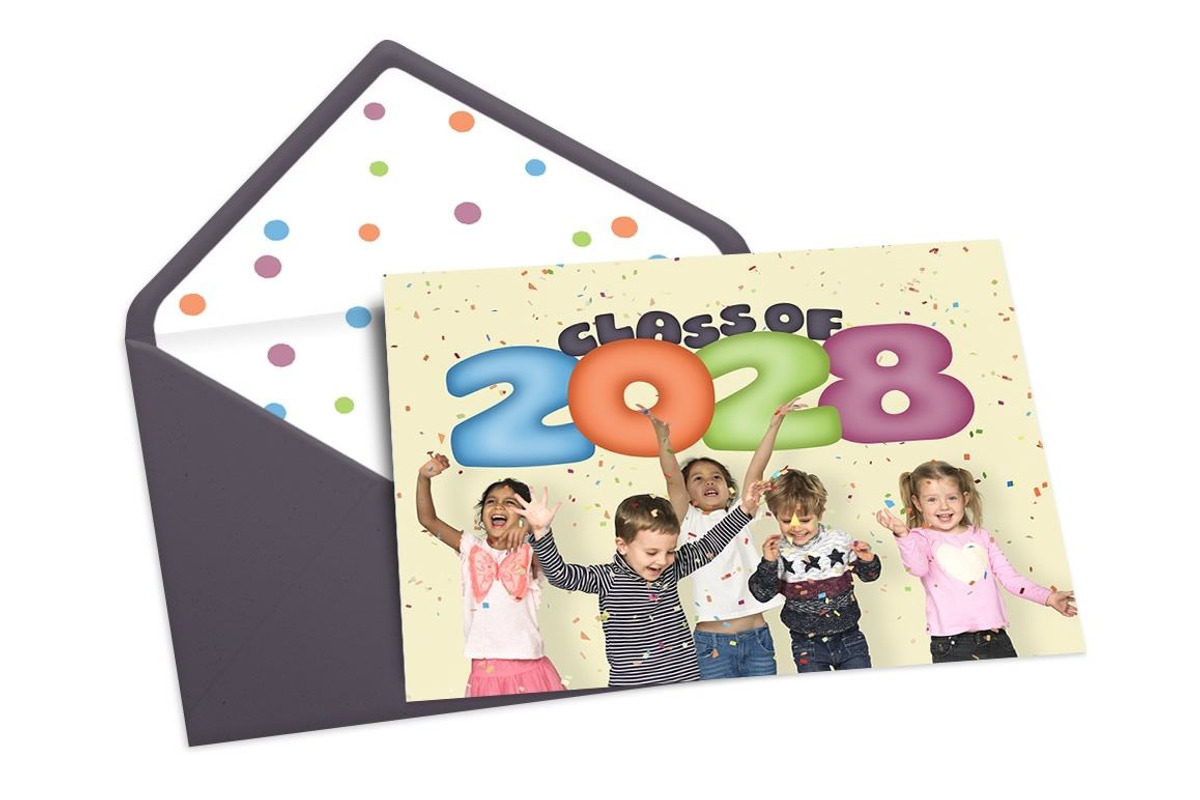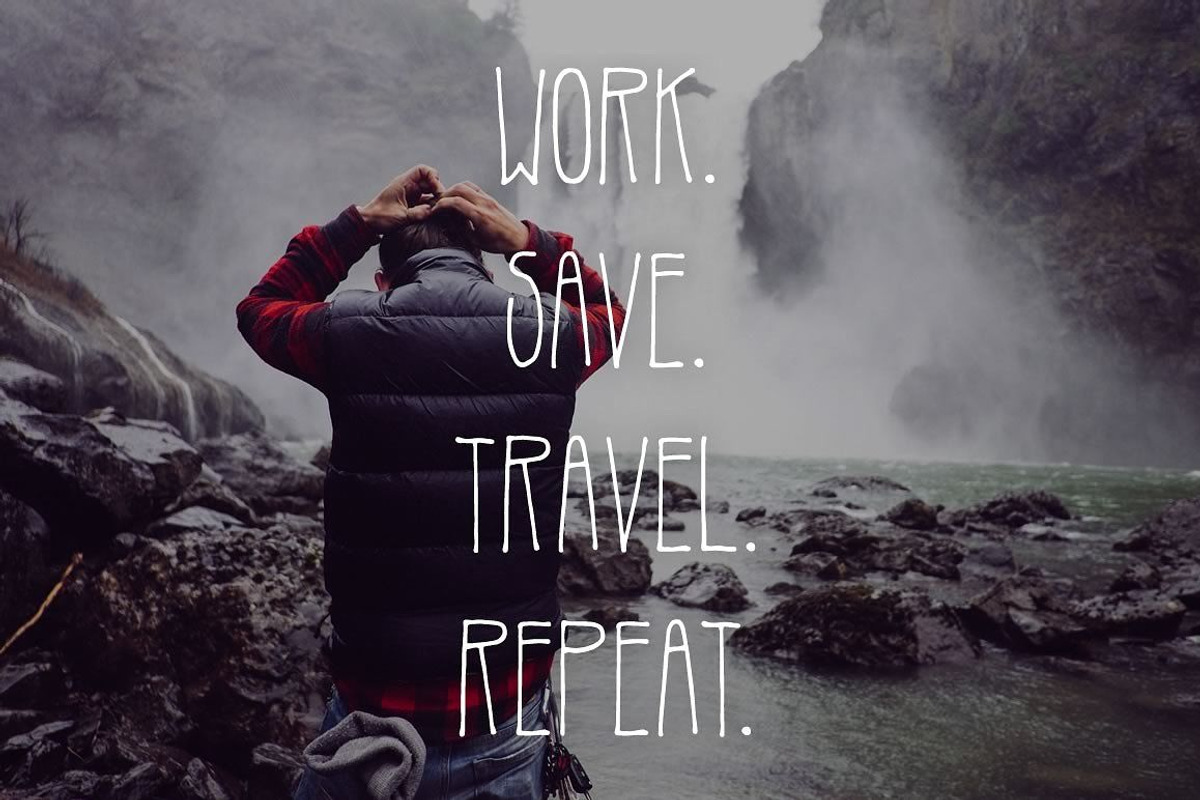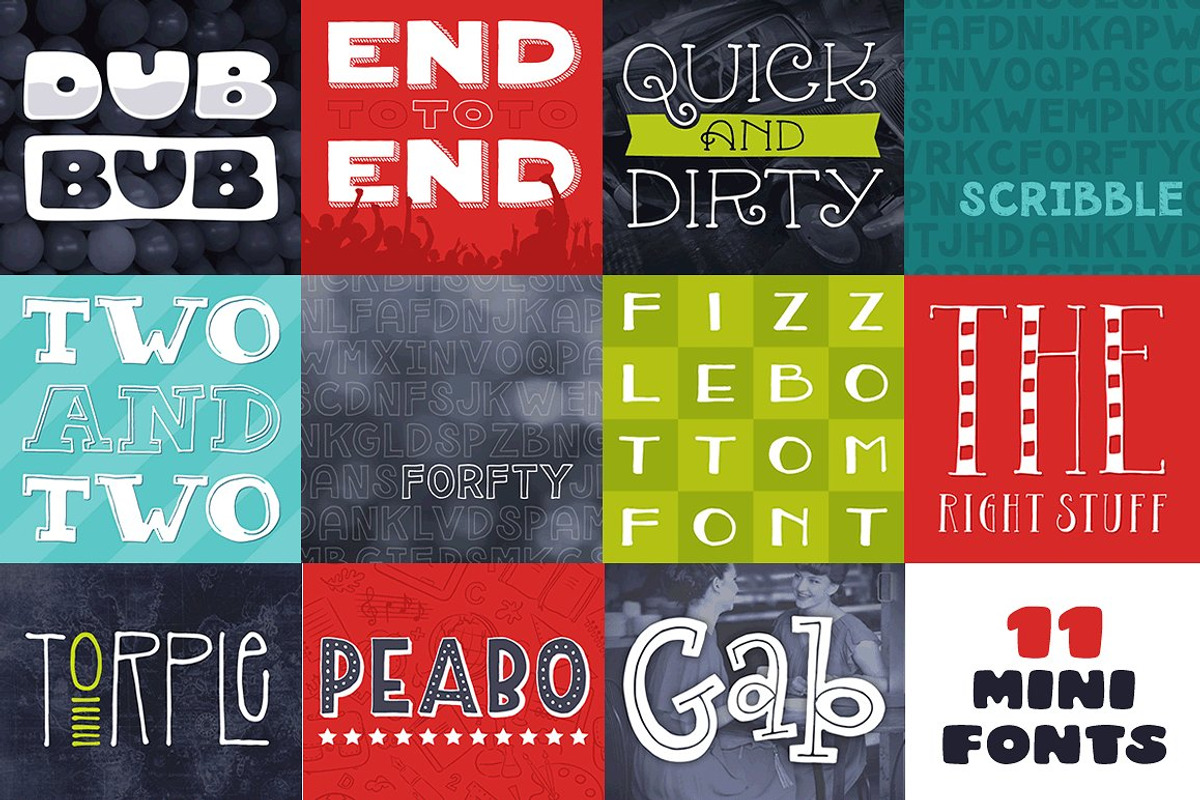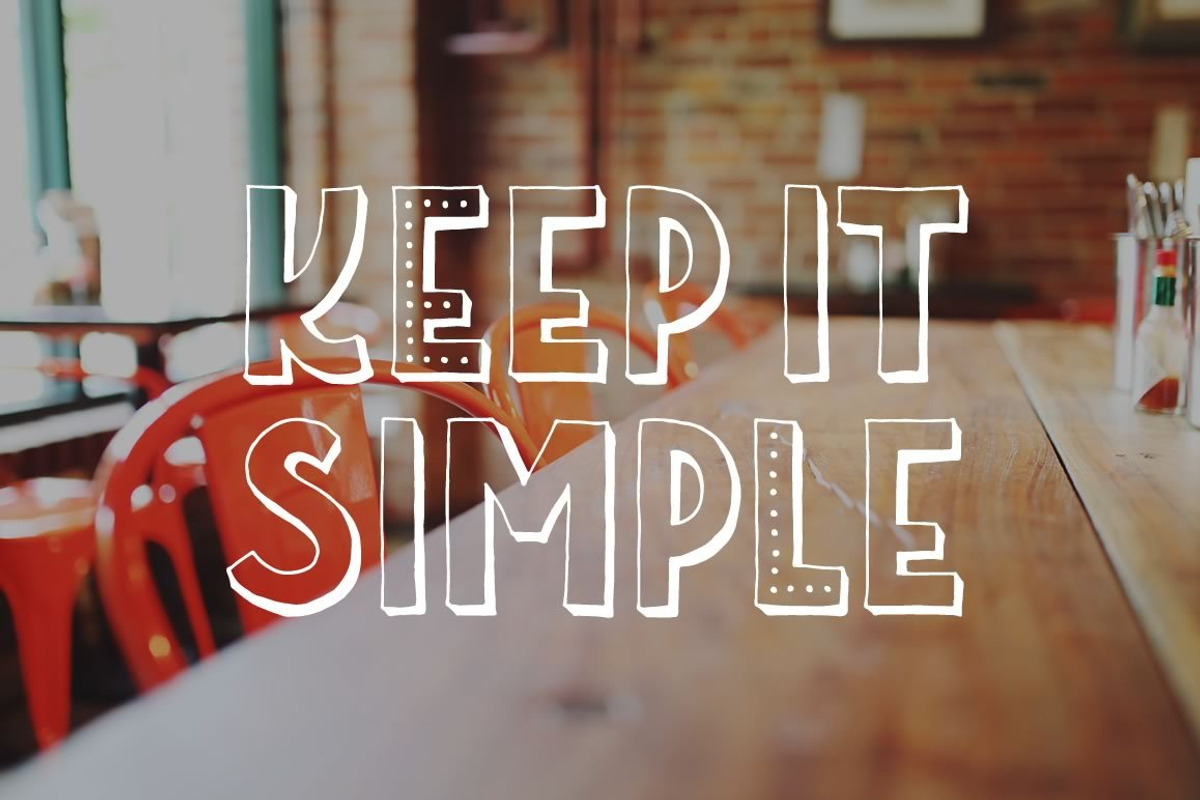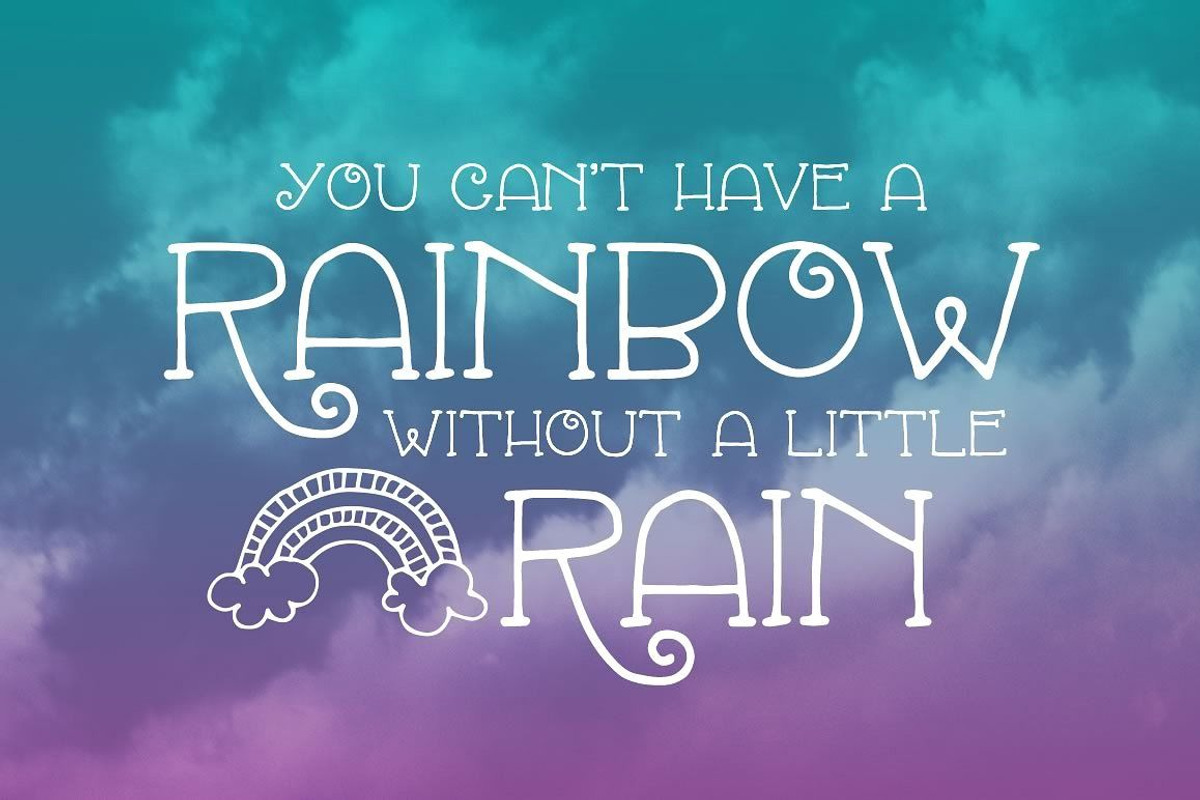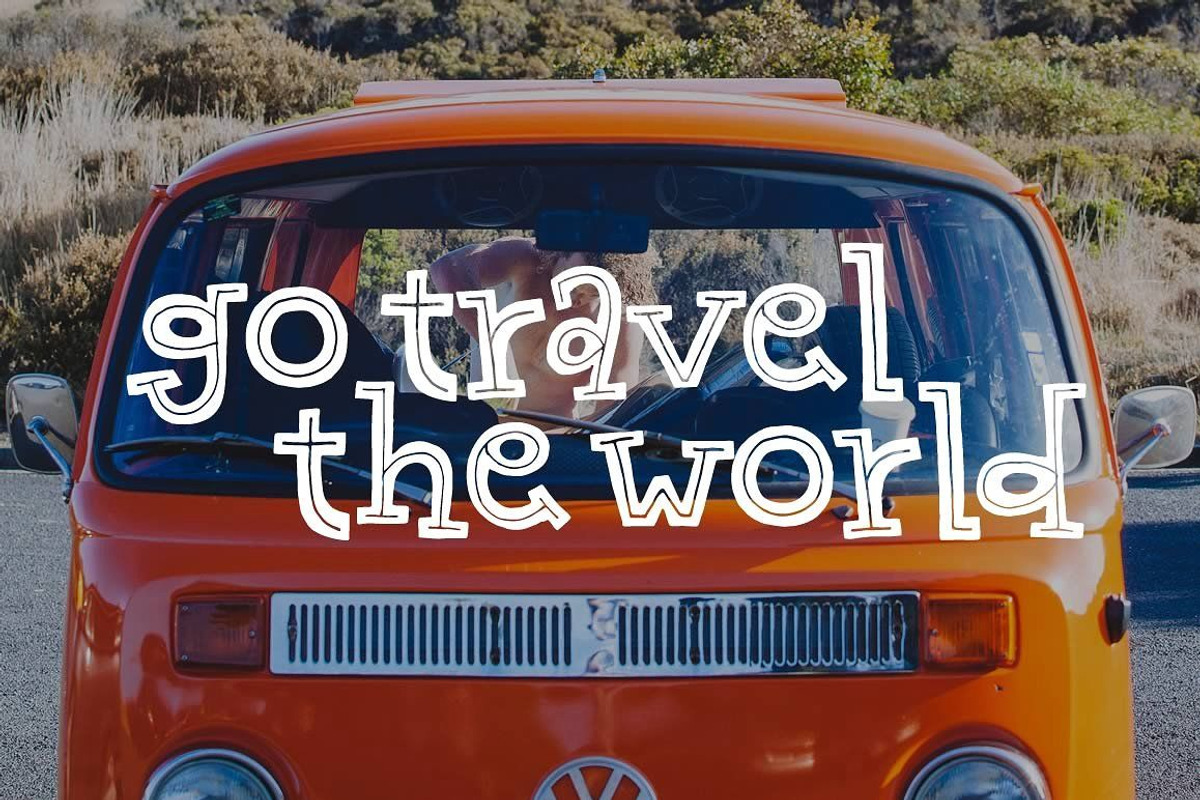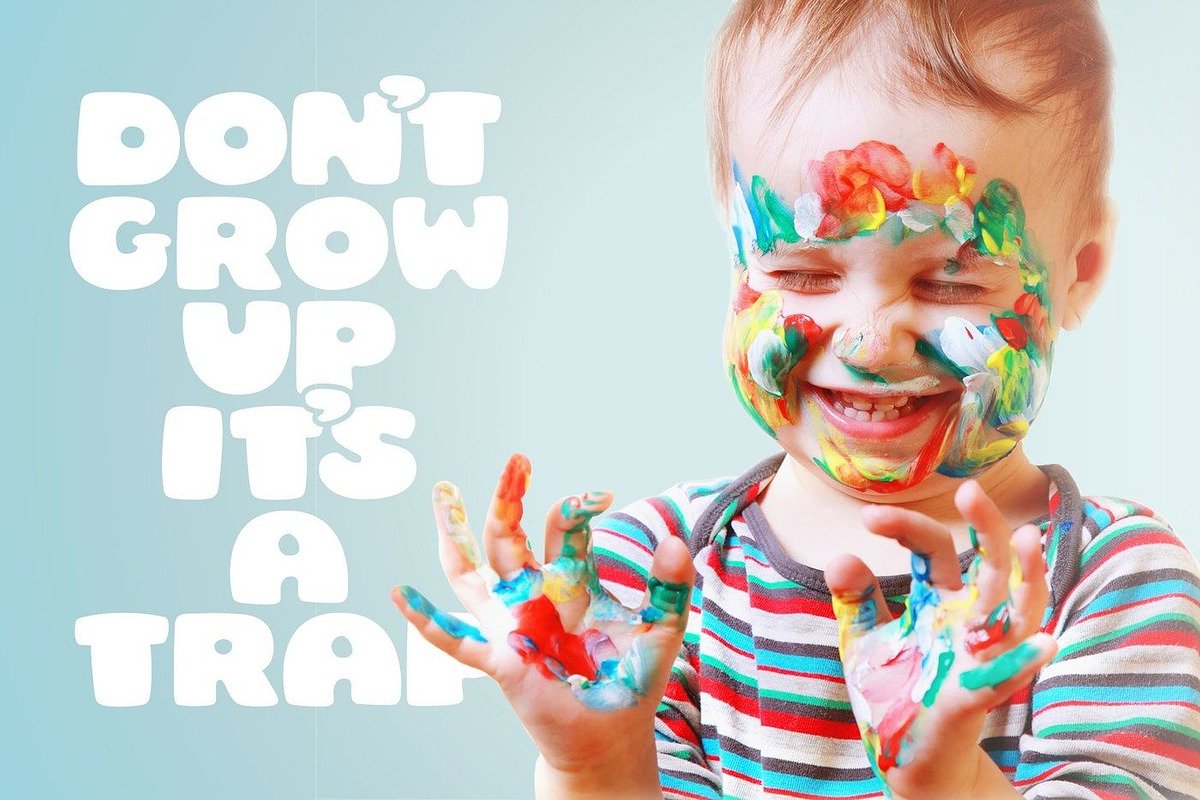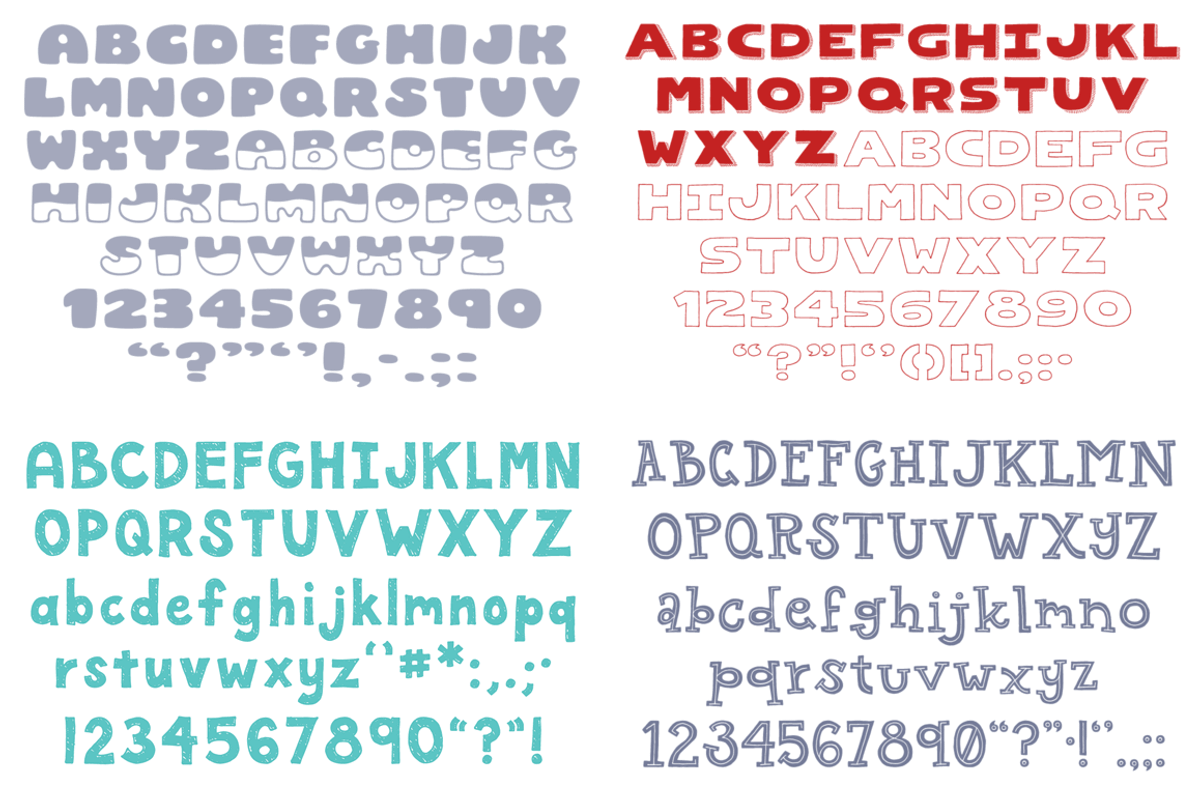
Mini Font Bundle
Mini Font Bundle by Denise Chandler is a font selected for branding, posters, packaging, typography.
- Bundle Includes: Quick & Dirty, Torple, The Right Stuff, Gab, Peabo, Forfty, Forfty Scribble, Dub Bub, End To End, Two & Two, Fizzlebottom.
Why Mini Font Bundle is worth a look
Mini Font Bundle by Denise Chandler fits naturally into Branding, posters, packaging, typography.